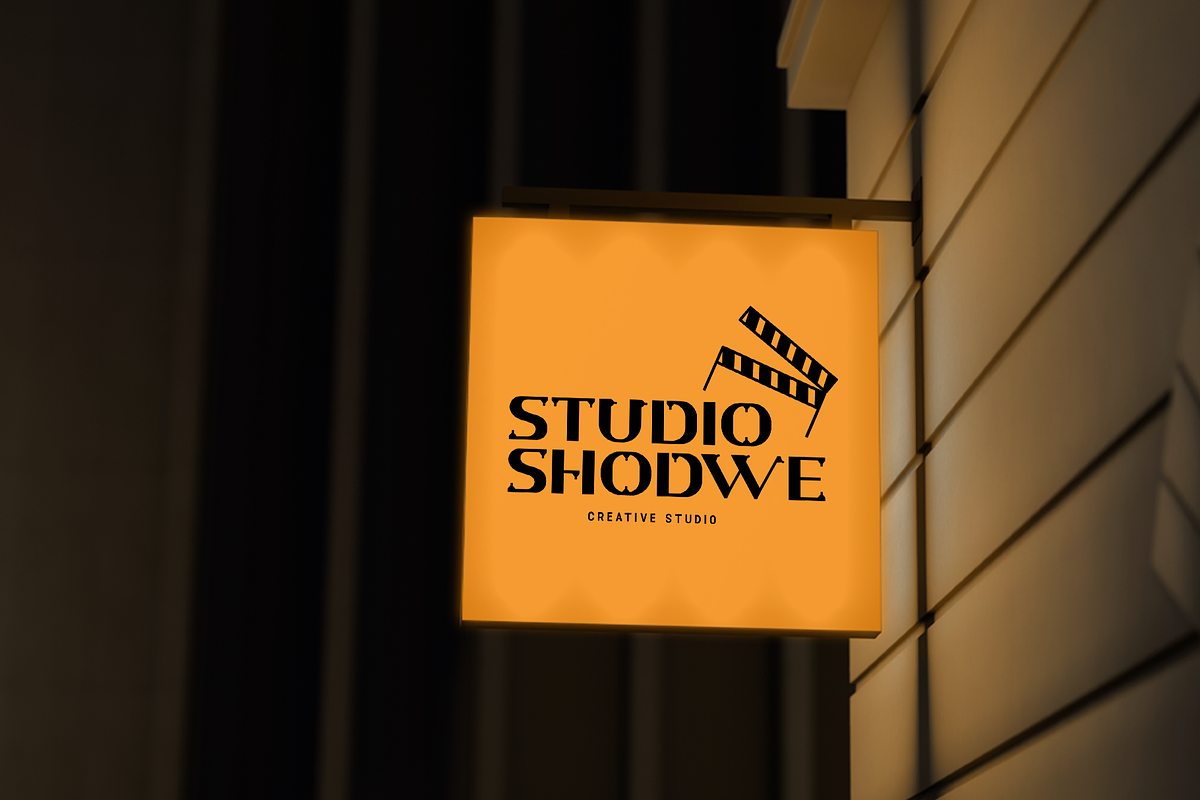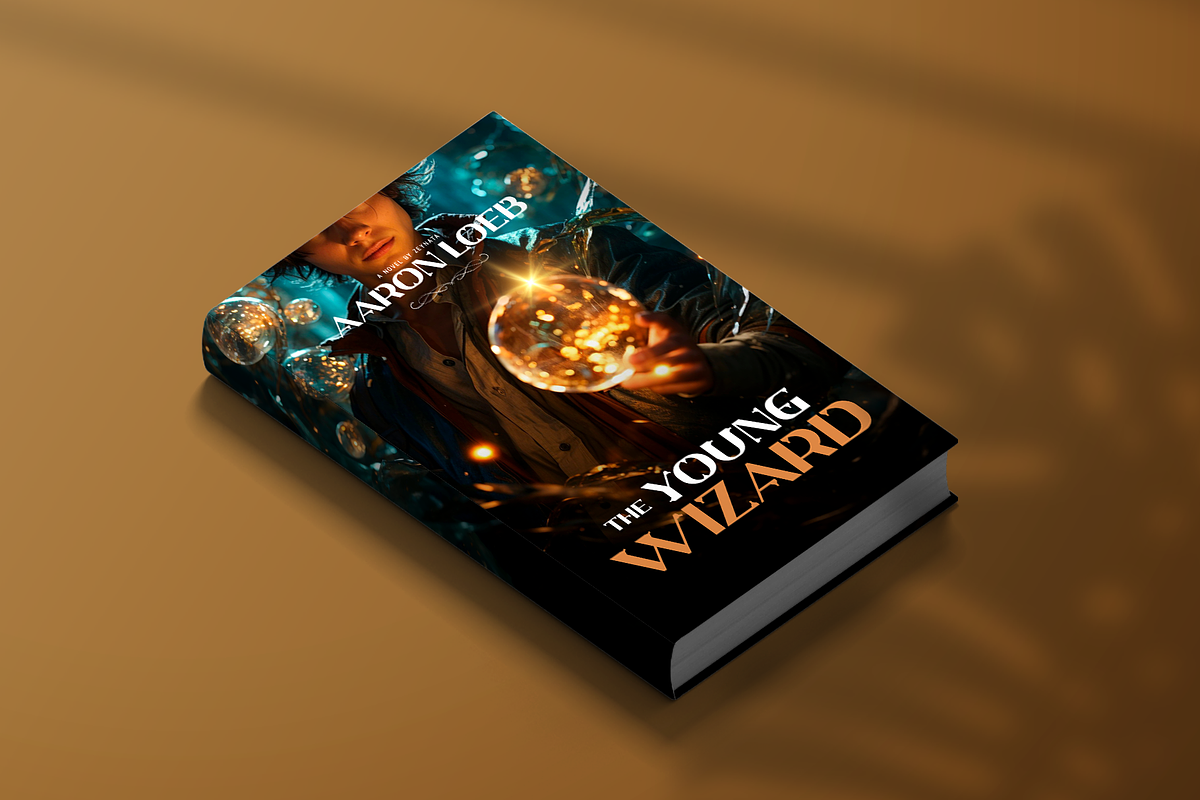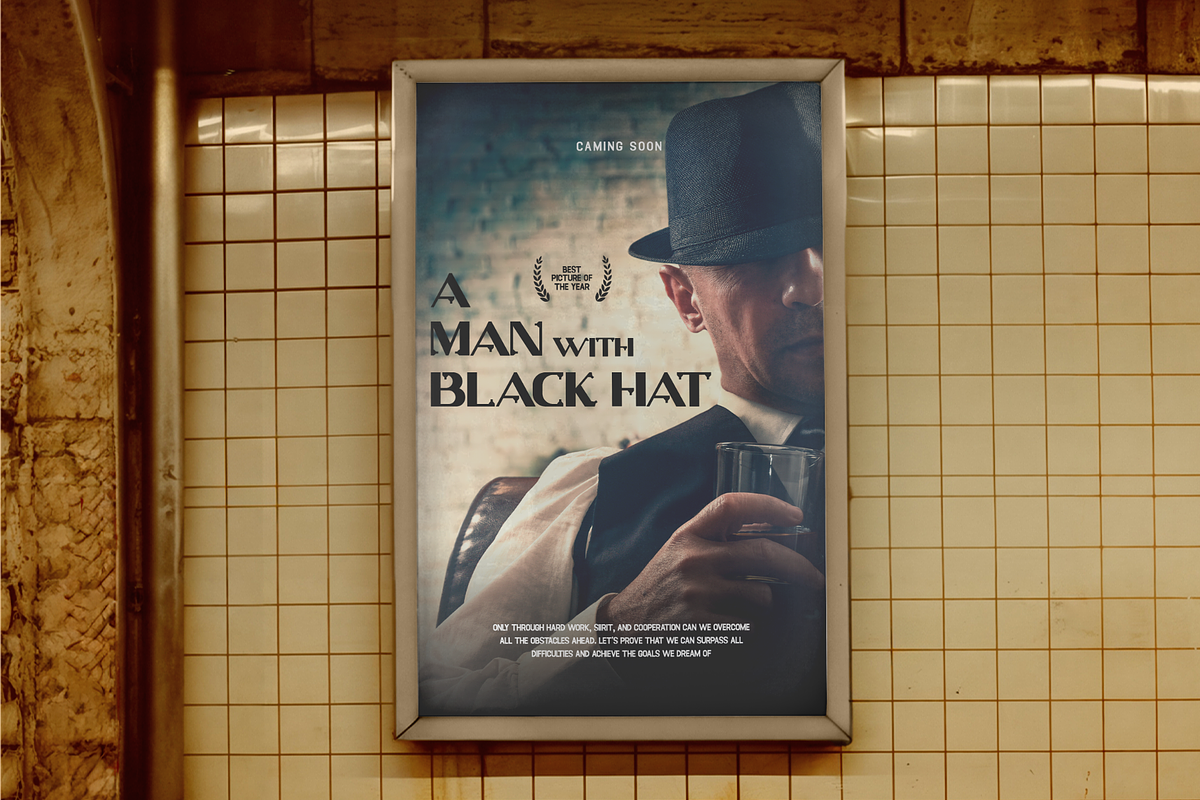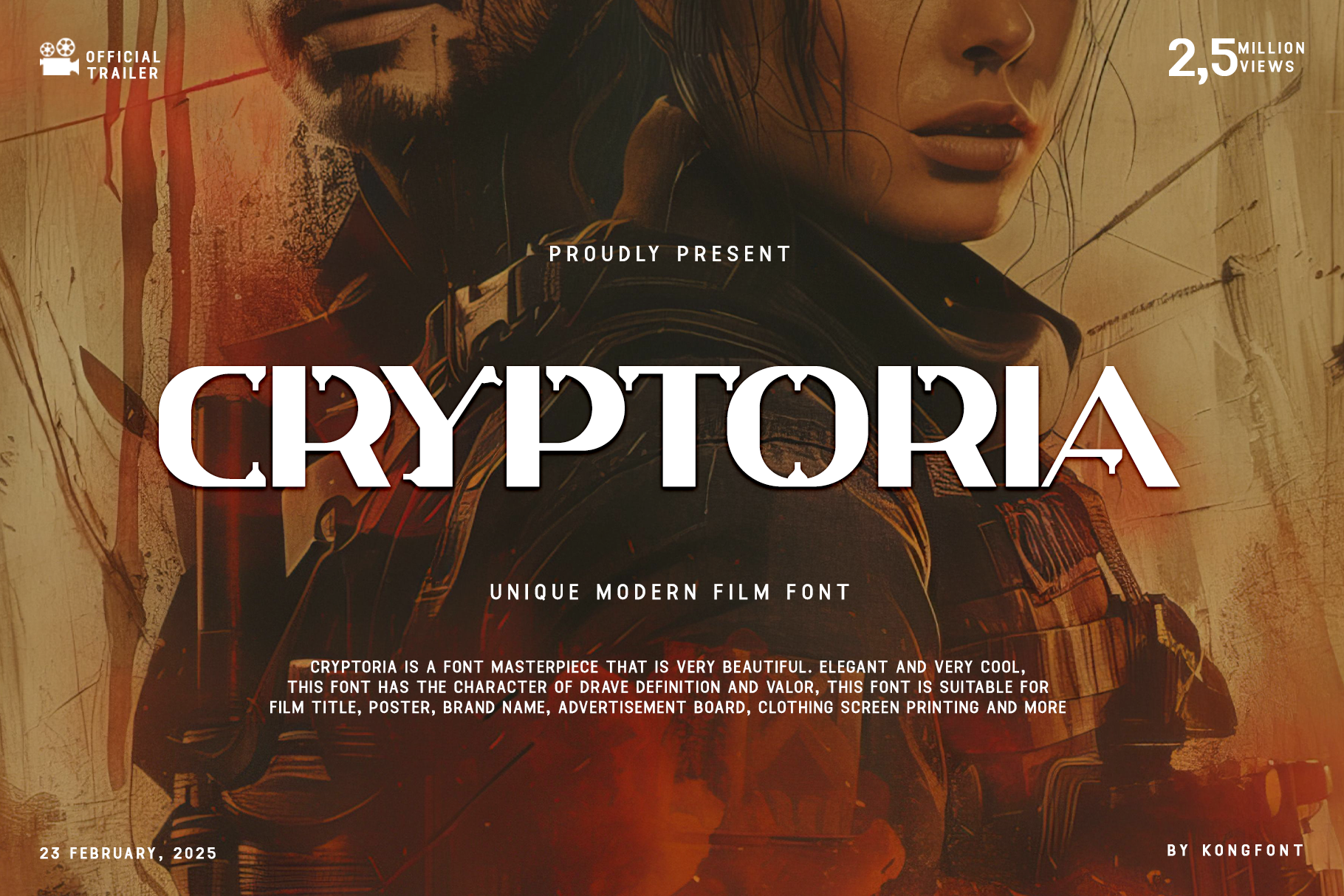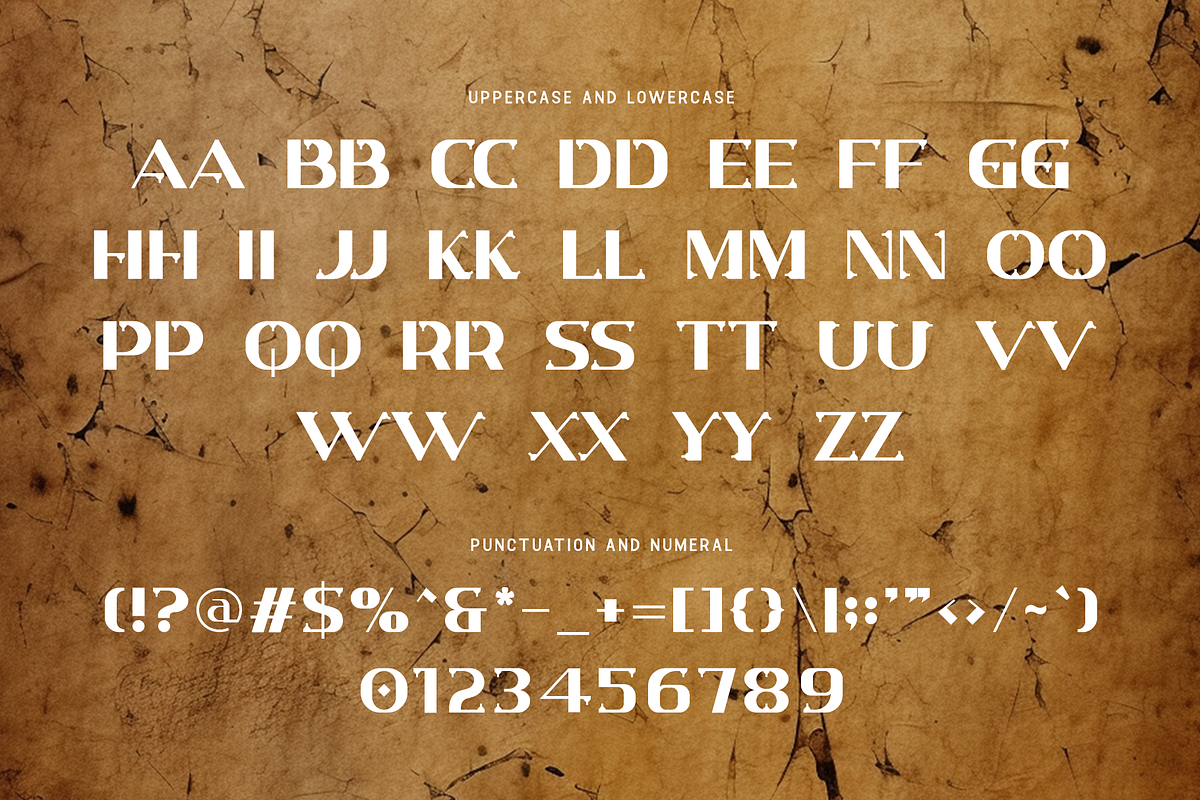
Cryptoria - Unique Modern Film Font
Introducing "Cryptoria," a unique modern film font designed to captivate and intrigue. With its distinct character and contemporary style, Cryptoria is perfect for creating striking titles, posters, and branding materials that stand out in any cinematic project.
Crafted with precision, Cryptoria is ideal for filmmakers, graphic designers, and creatives looking to add a mysterious and modern flair to their work. Its bold lines and unique forms evoke a sense of intrigue and sophistication, making it an excellent choice for movie titles, promotional materials, and more.
The "Cryptoria" font features a full set of uppercase and lowercase letters, numbers, and punctuation marks, ensuring versatility and flexibility for all your design needs. Whether you're working on film projects or creating impactful visual content, Cryptoria elevates your designs with its unique and captivating aesthetic.
Unveil the mystery and modern elegance of Cryptoria, and let your projects shine with cinematic brilliance.